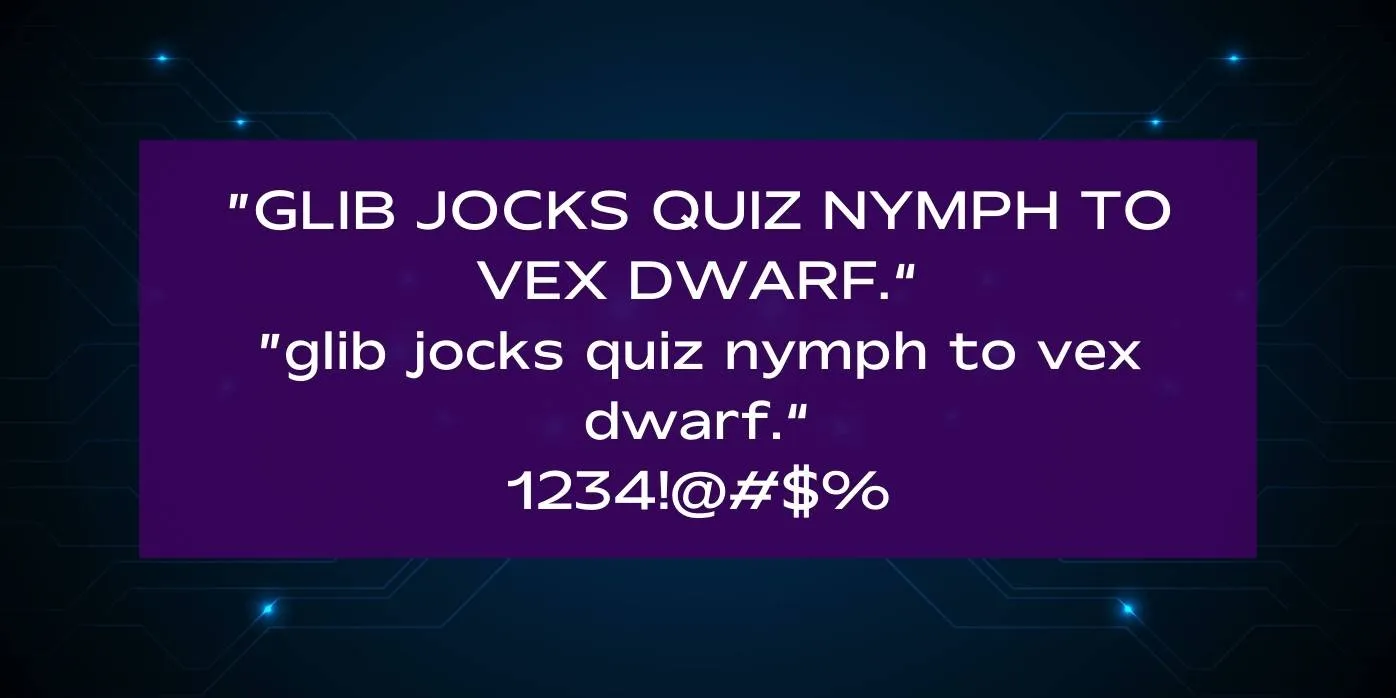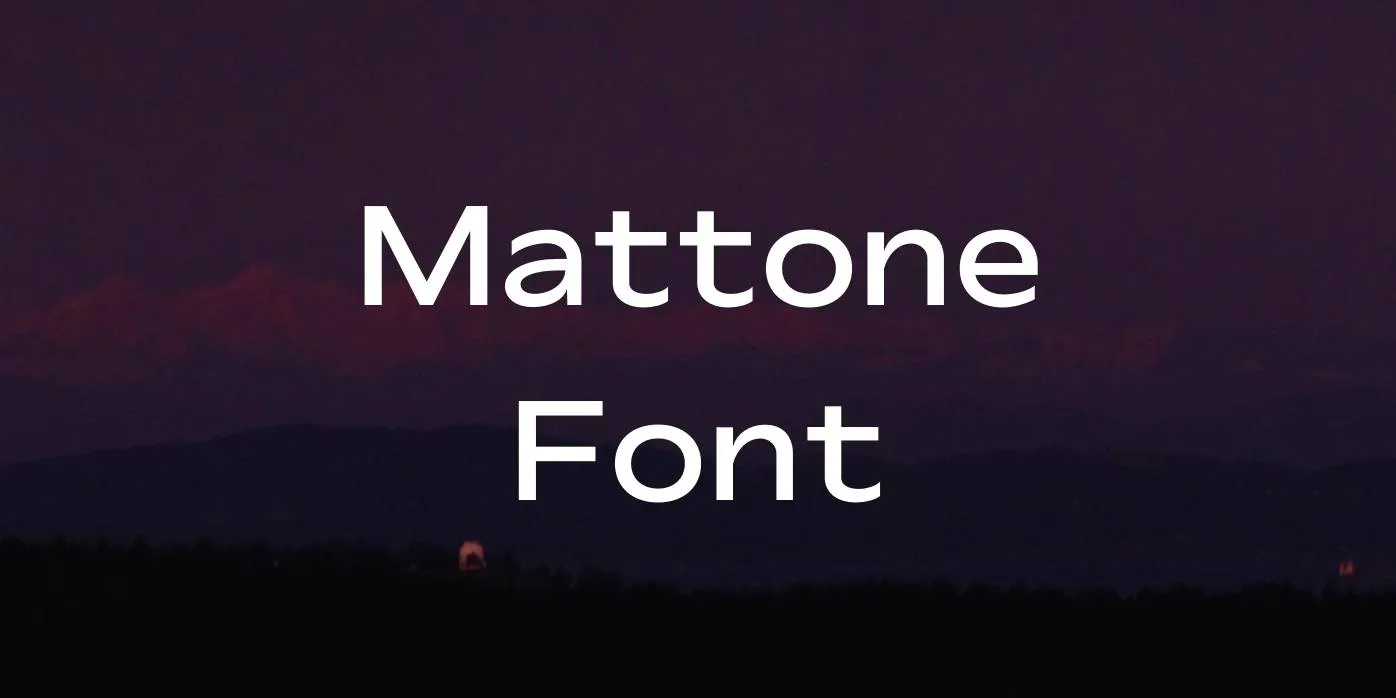
Mattone Font
Mattone Font is a family of sans-serif typefaces. The name comes from the Italian word for “brick”, which is what the typeface was designed to resemble. The first member of the Mattone Font family was released in 2001 and was designed by Lucio Passarelli. Lucio Passarelli was born in Rome, Italy, in 1974.
He graduated from the Academy of Fine Arts in Rome in 1999. He has worked as a graphic designer and art director for various advertising agencies and design studios in Rome. The Font family includes both regular and bold weights, as well as a condensed and Extended width. The texturing of this typeface is great to work with the pairing of algerian font.